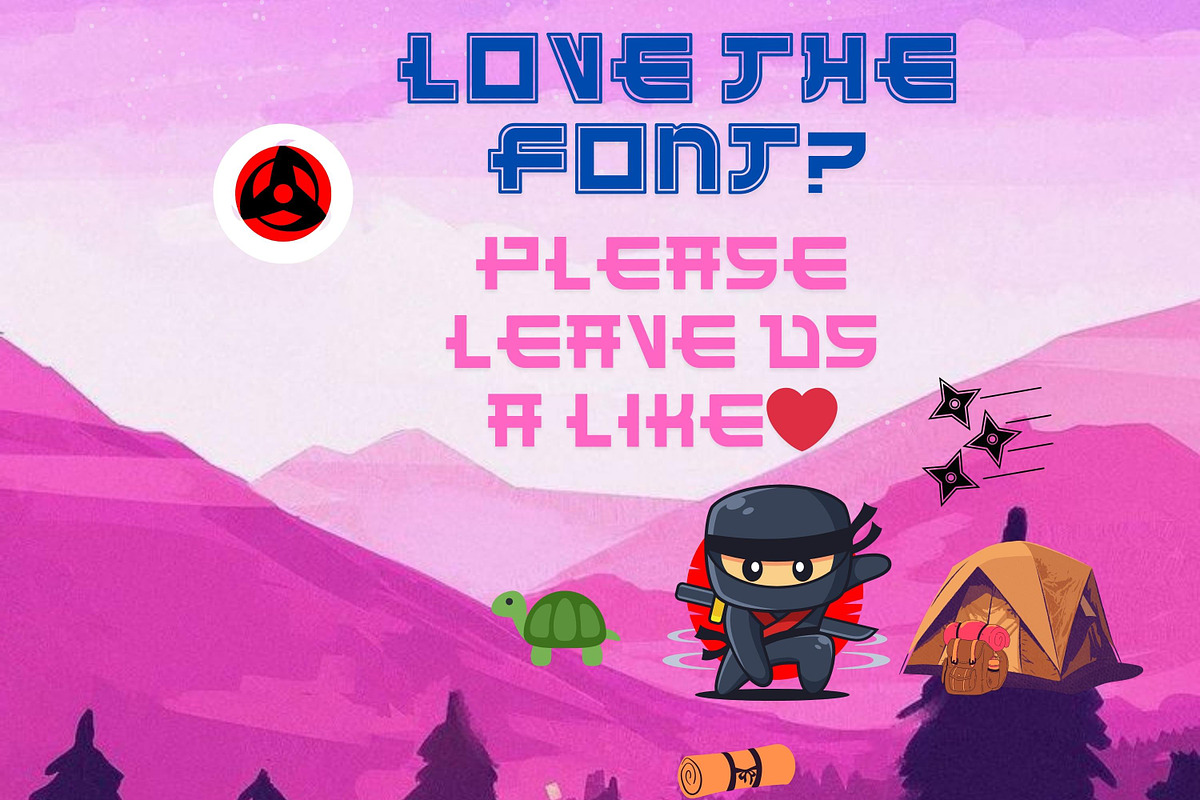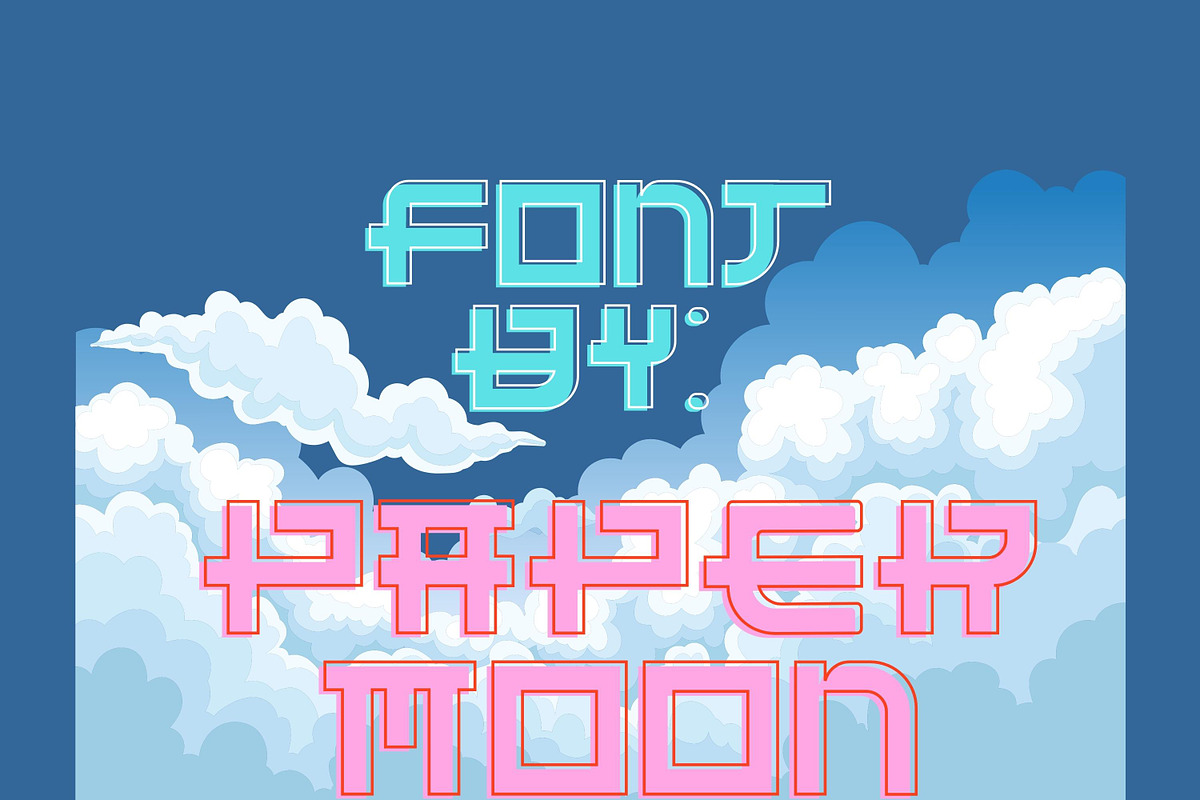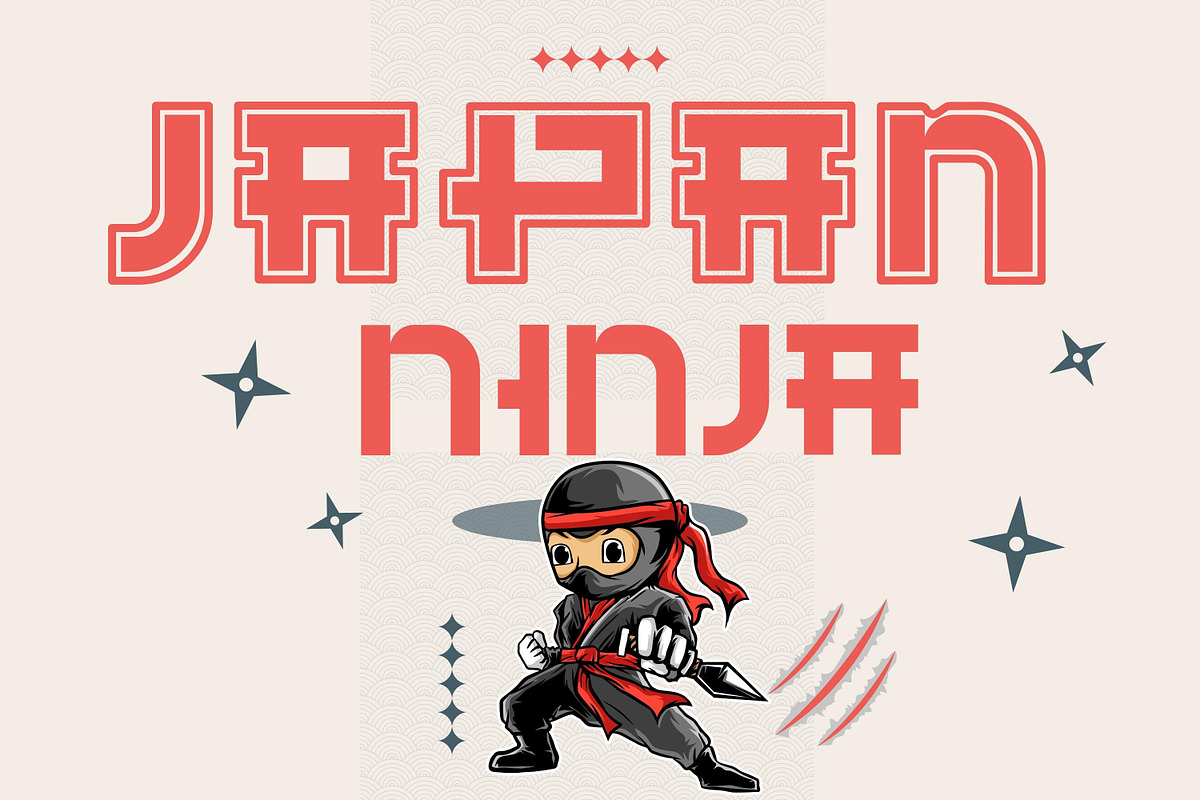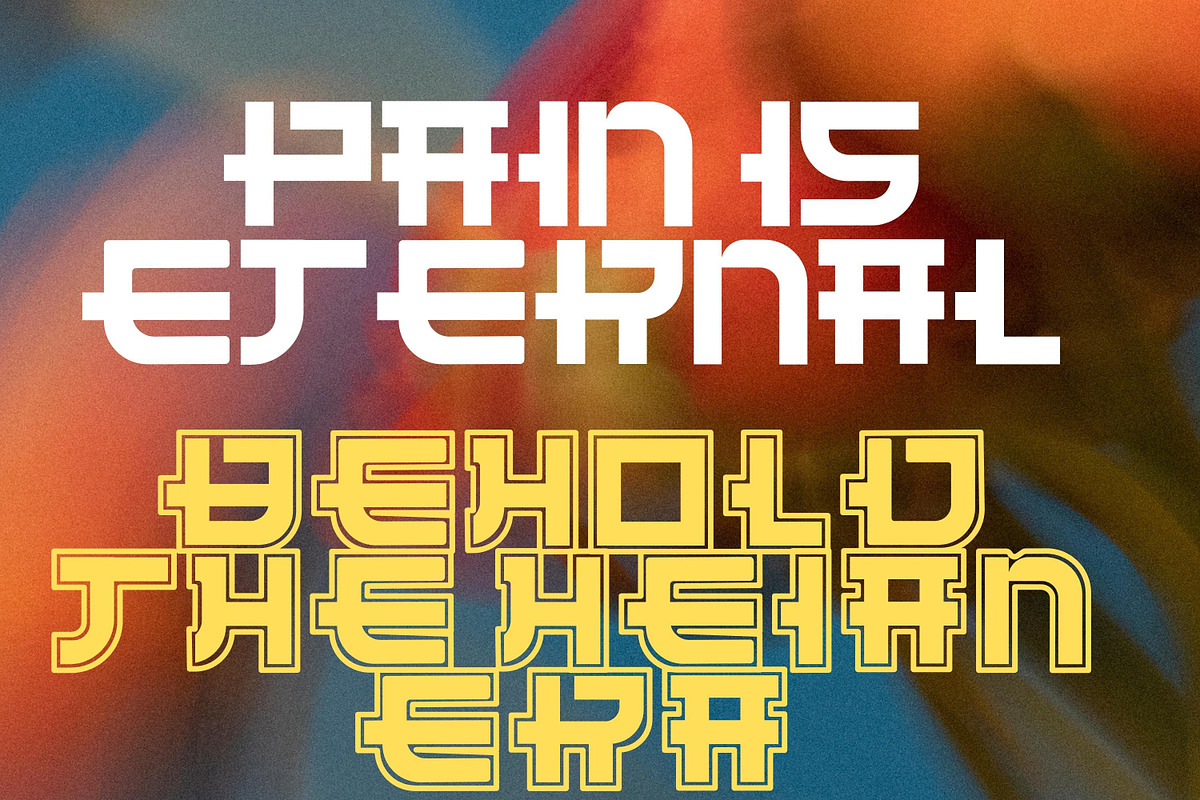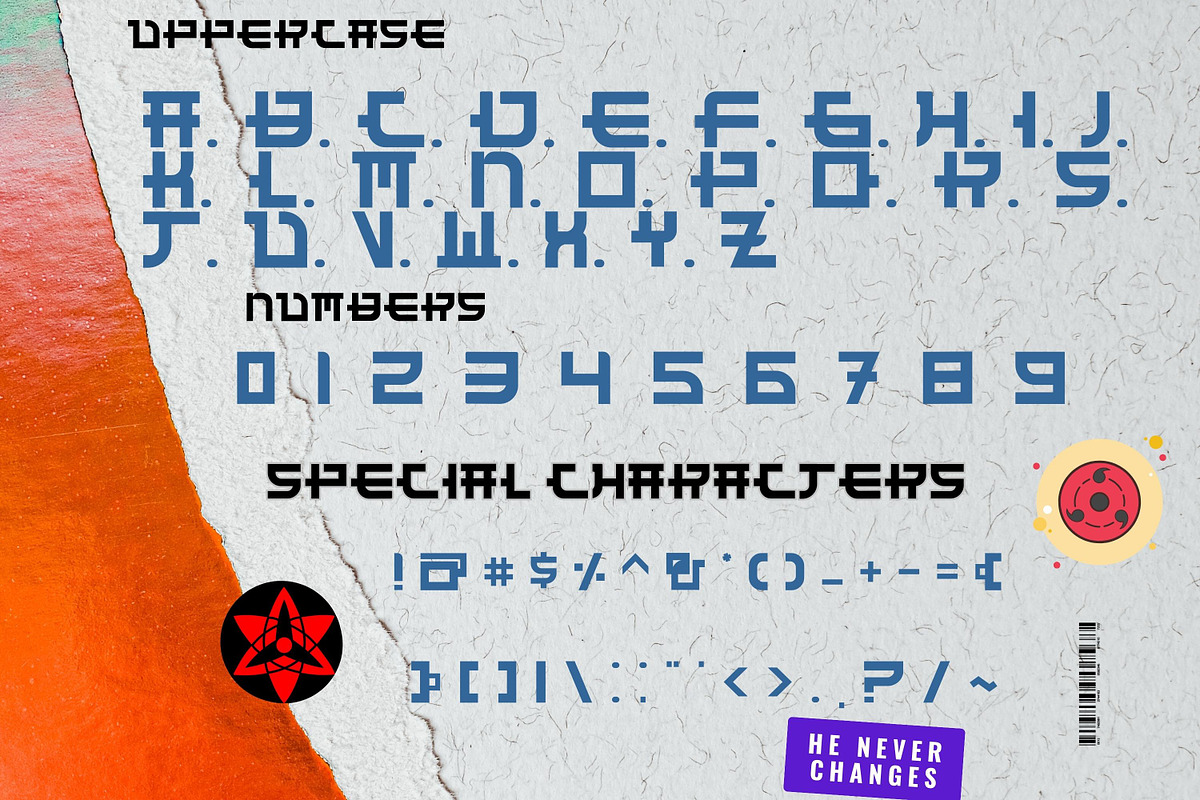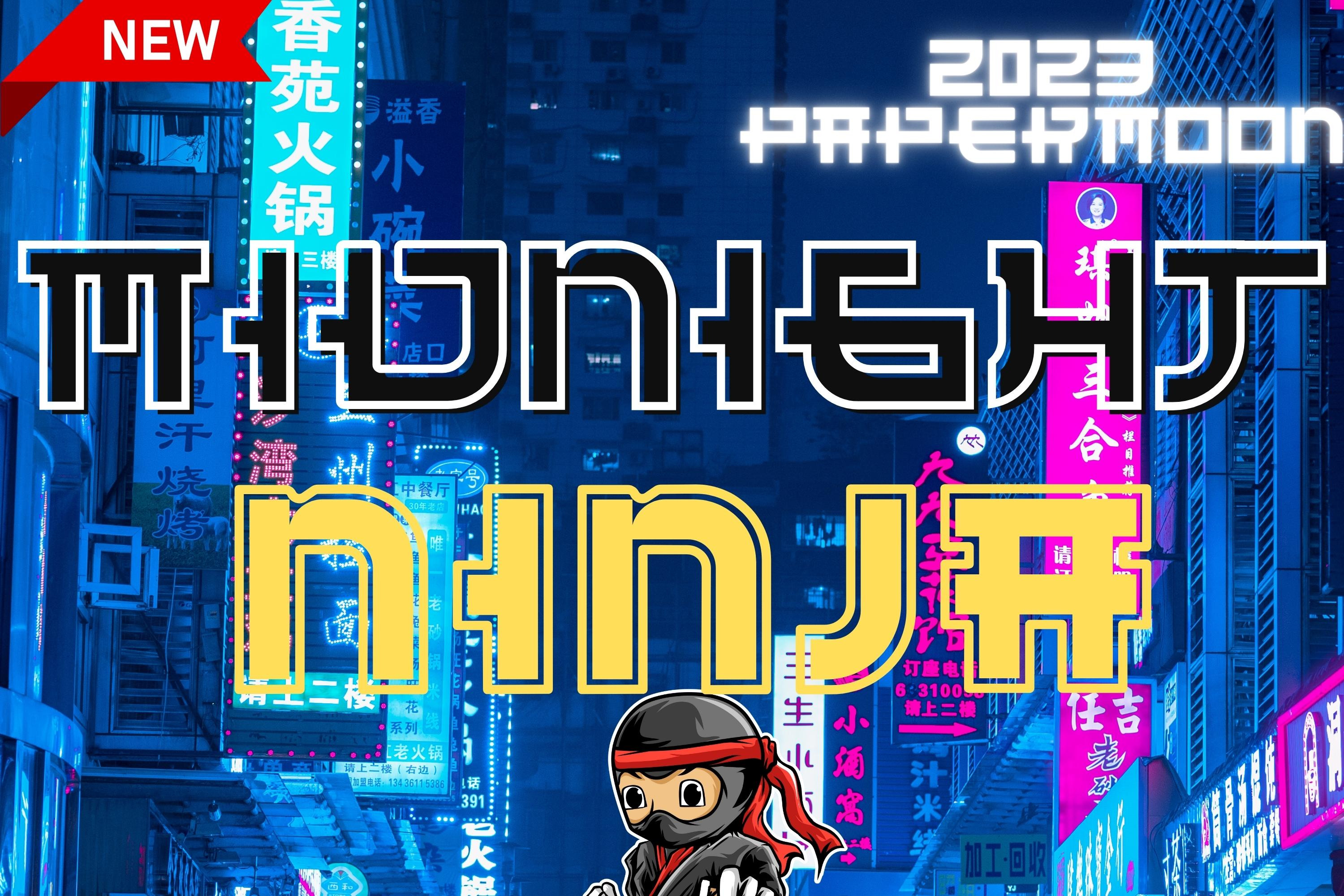
Midnight Ninja Samurai Font
Hey there, everyone! How's it going? We're excited to introduce our latest font collection: Midnight Ninja!
Midnight Ninja is a sans serif font family inspired by Japanese comic themes, giving it a unique and playful vibe. It comes in two styles: the regular style and the outline style. This font is the perfect choice for a wide range of creative projects, including logos, branding, flyers, headlines, magazines, and more. Its versatility suits various industries, such as casual, comic, services, or even a Japanese law firm.